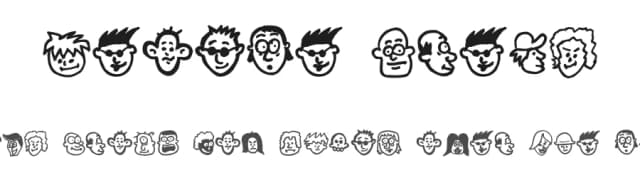
About Amareleta Font
Amareleta is a decorative font designed by Fred Lobo. It includes 115 glyphs, a regular weight, TTF (TrueType) format, and 107 languages. Amareleta is free to download; check the license details on this page before commercial use. Decorative fonts like Amareleta work best for logos, posters, packaging, and standout headlines.
Amareleta Font is a decorative font that shines as a display or heading face. Pair it with a clean sans-serif or serif font for body text β the contrast creates a clear hierarchy while the two styles stay balanced and easy to read.
Amareleta Font
by Fred Lobo
Amareleta Font is a decorative typeface by Fred Lobo, ideal for logos, invitations, branding, and creative projects.